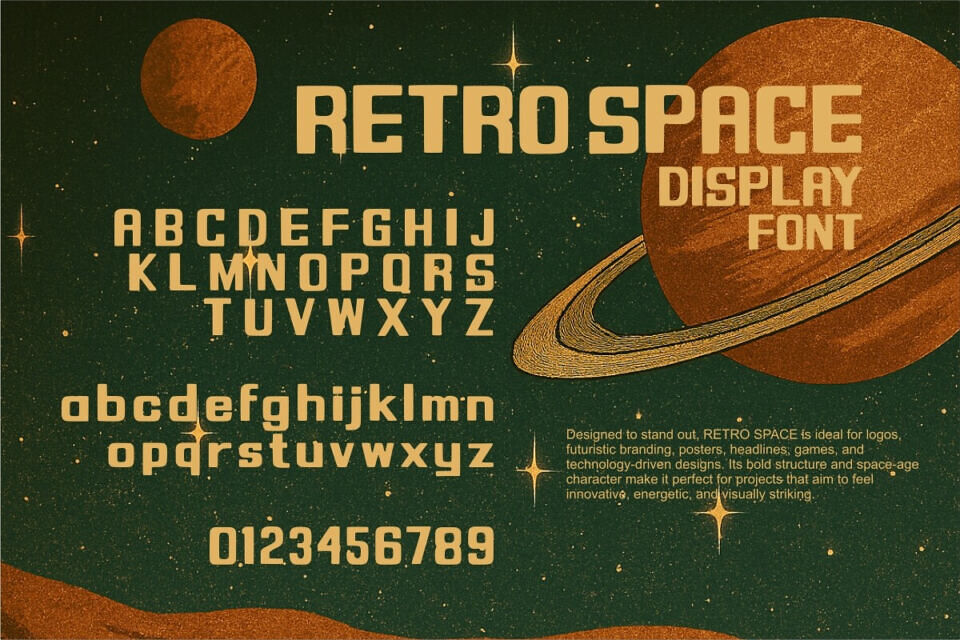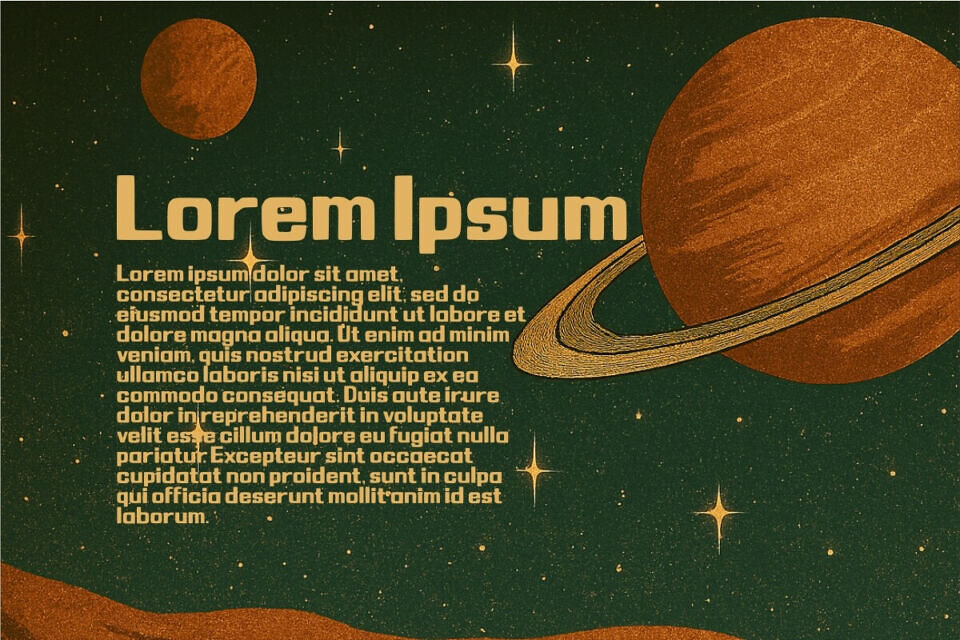
RETRO SPACE is a bold display typeface inspired by retro-futuristic space and classic sci-fi aesthetics. It combines strong geometric forms with a modern tech feel, creating a powerful and confident visual presence.
Designed to stand out, RETRO SPACE is ideal for logos, futuristic branding, posters, headlines, games, and technology-driven designs. Its bold structure and space-age character make it perfect for projects that aim to feel innovative, energetic, and visually striking.